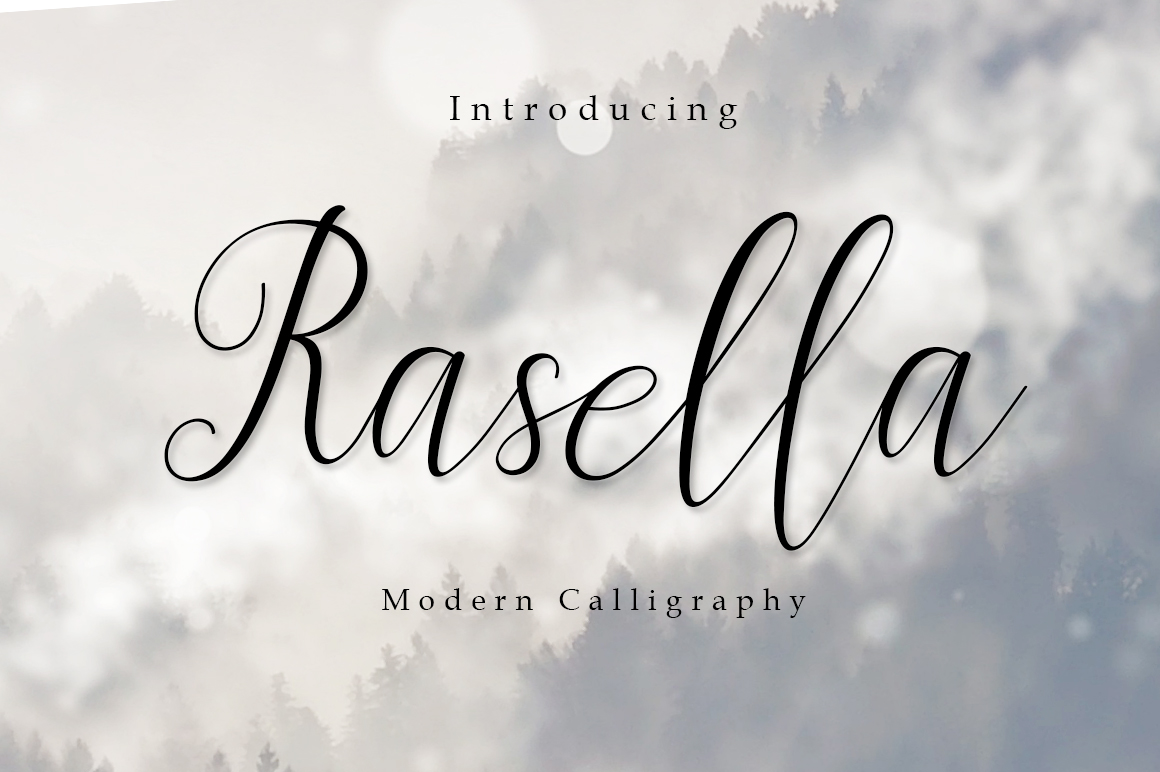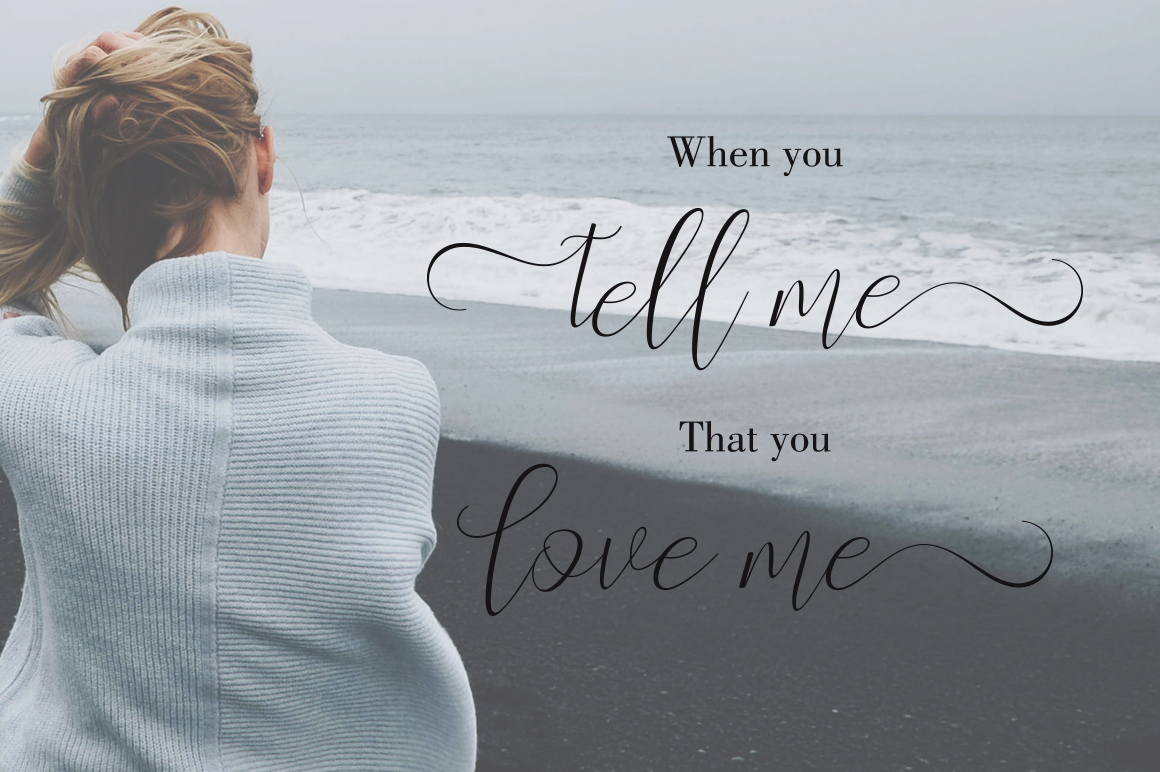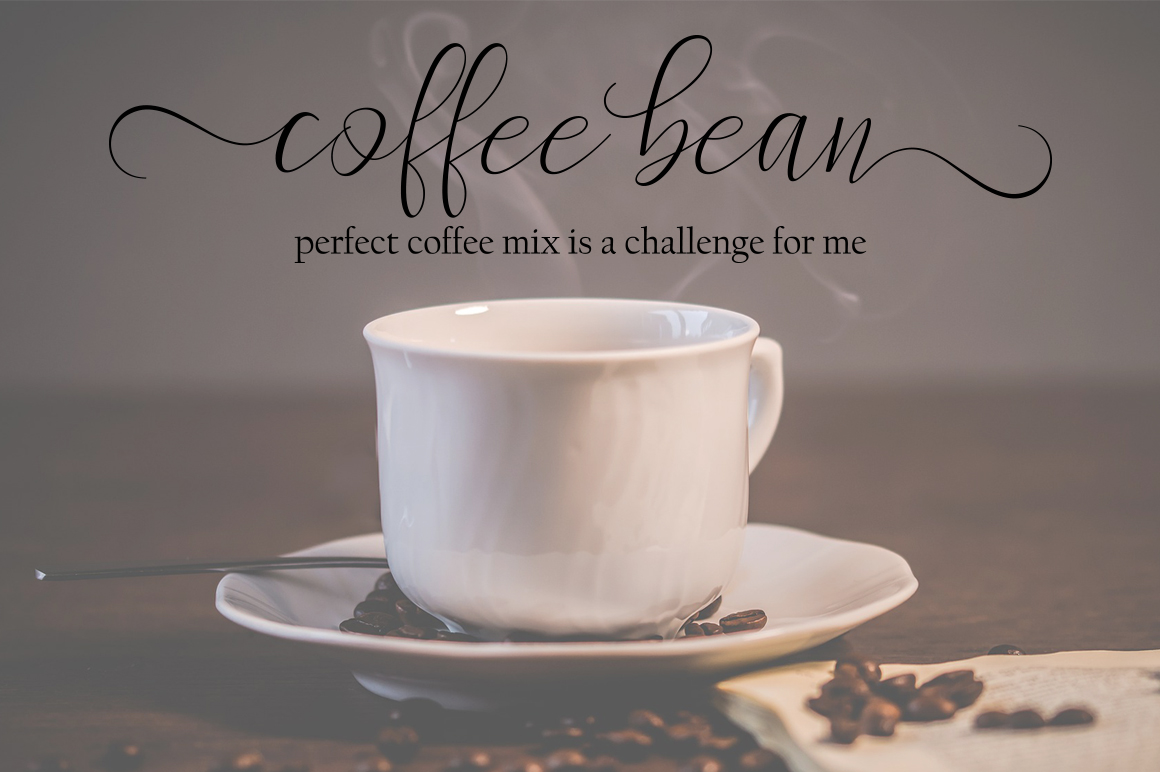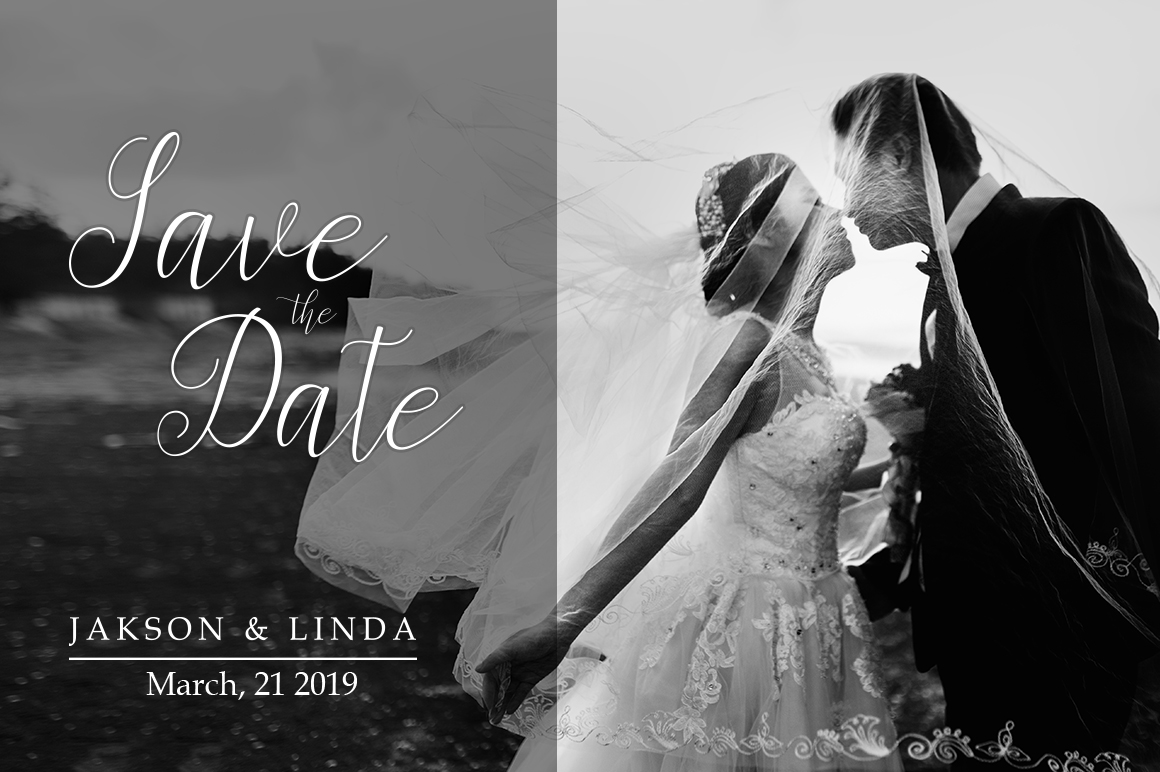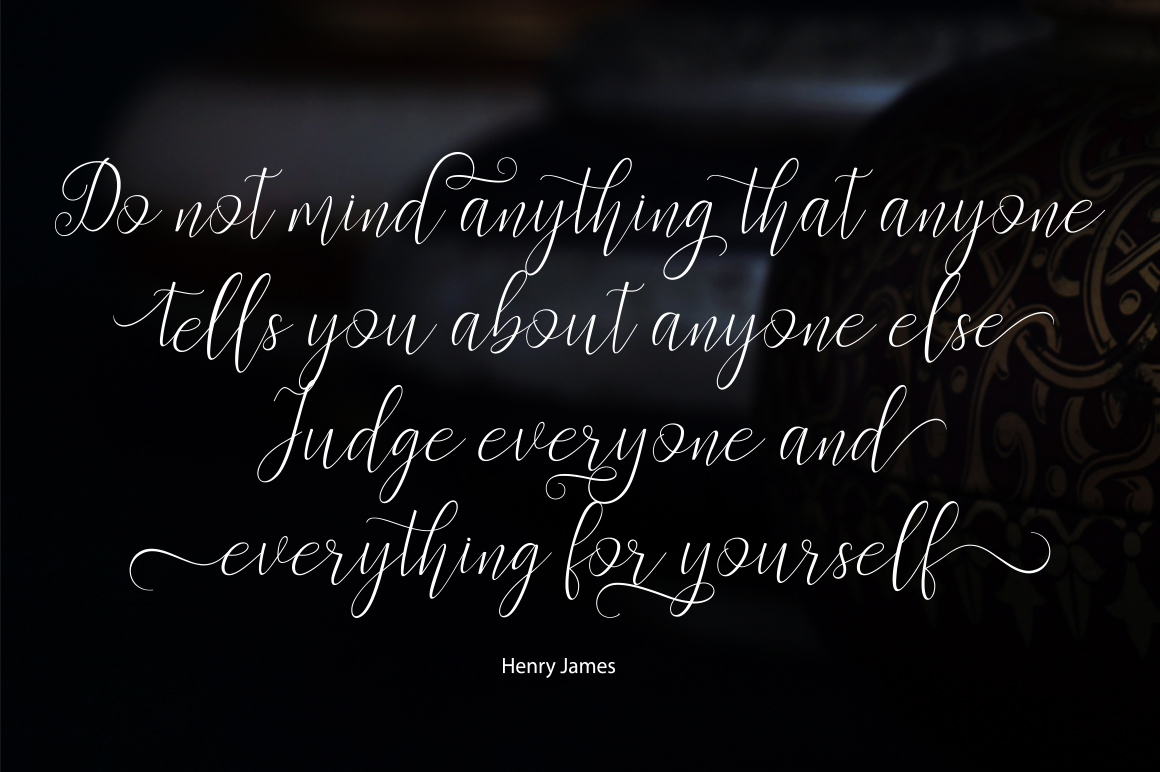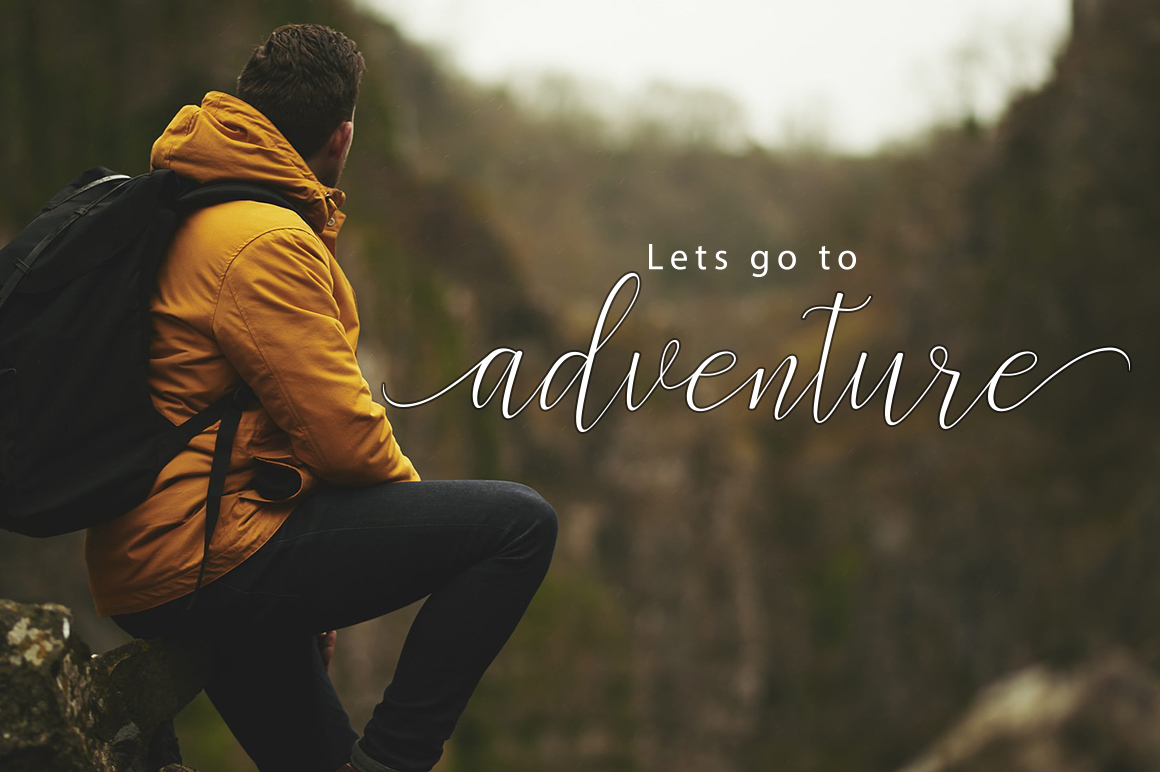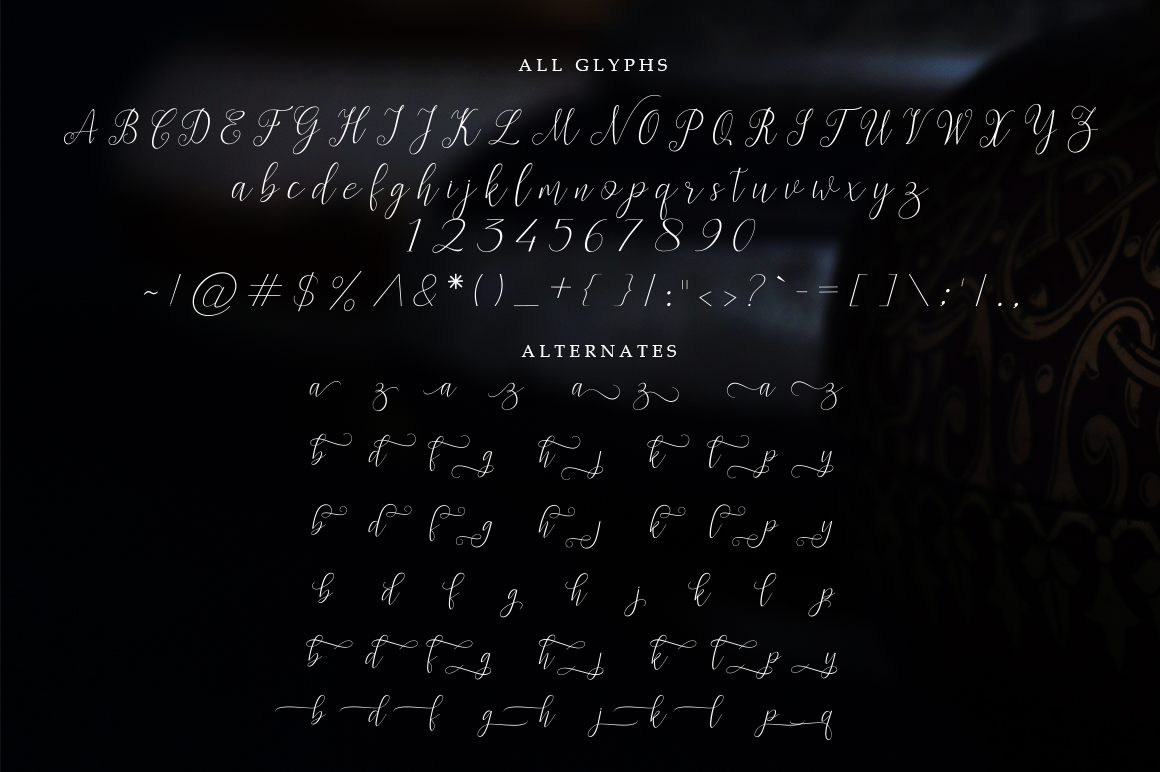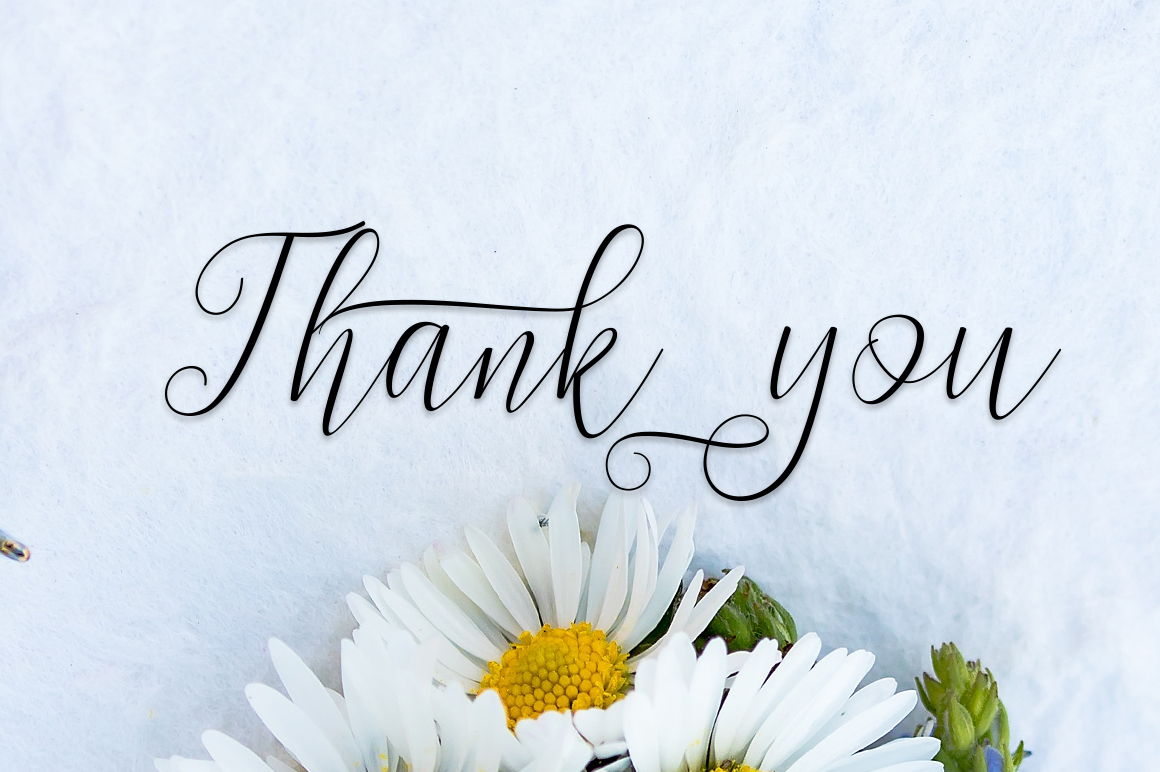
Rasella Font
About Rasella Font
Rasella is a beautiful script font with an informal yet charming appeal. This font has a thin quality and a slight contrast, so it doesn’t compete but rather enhances your designs.